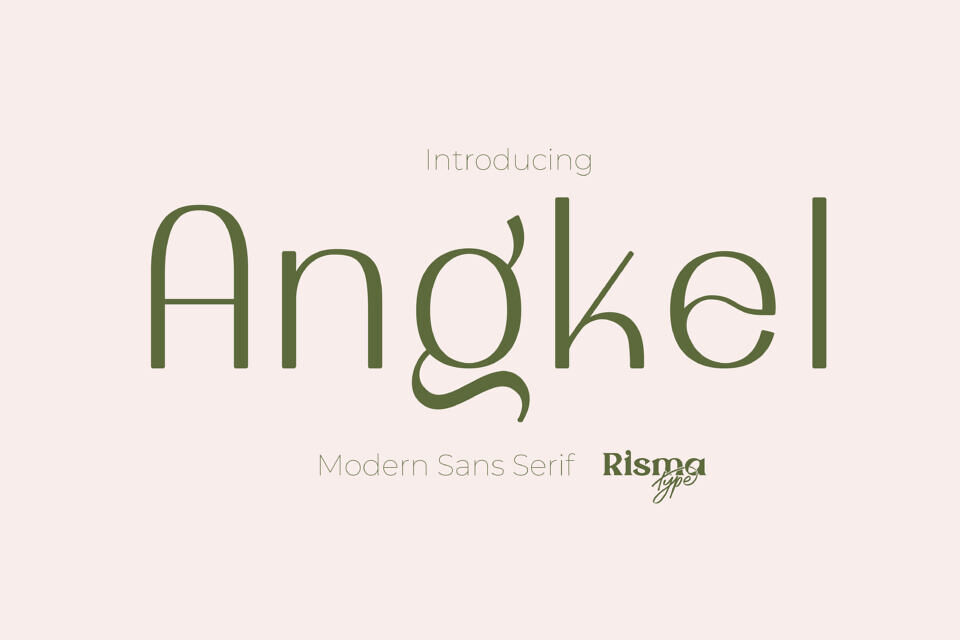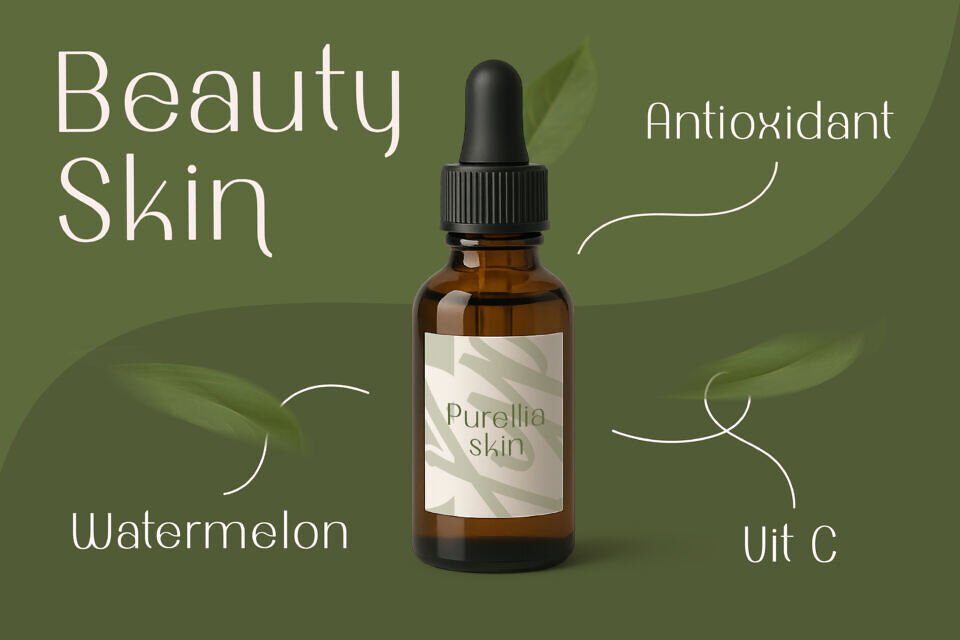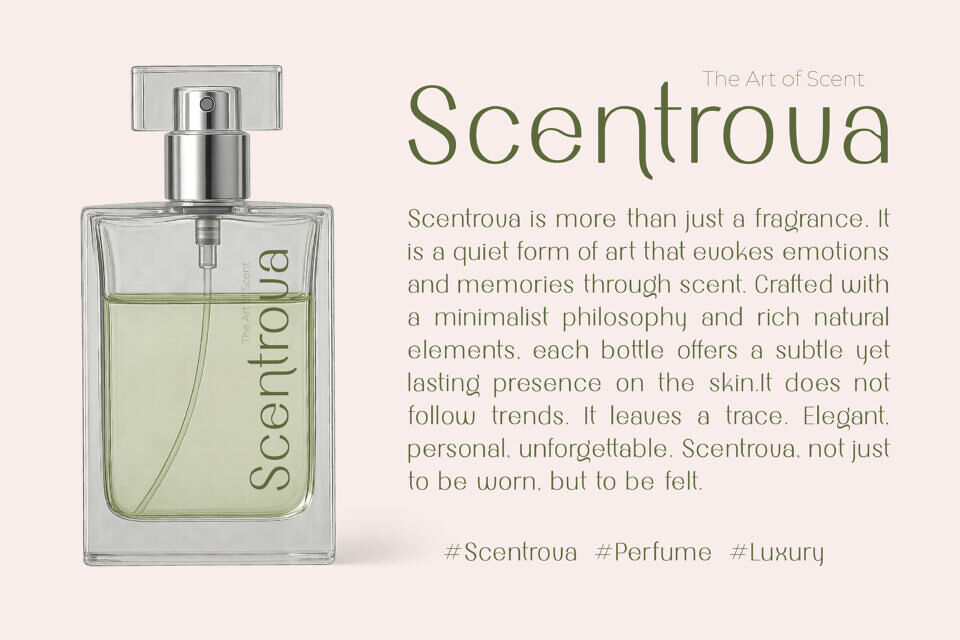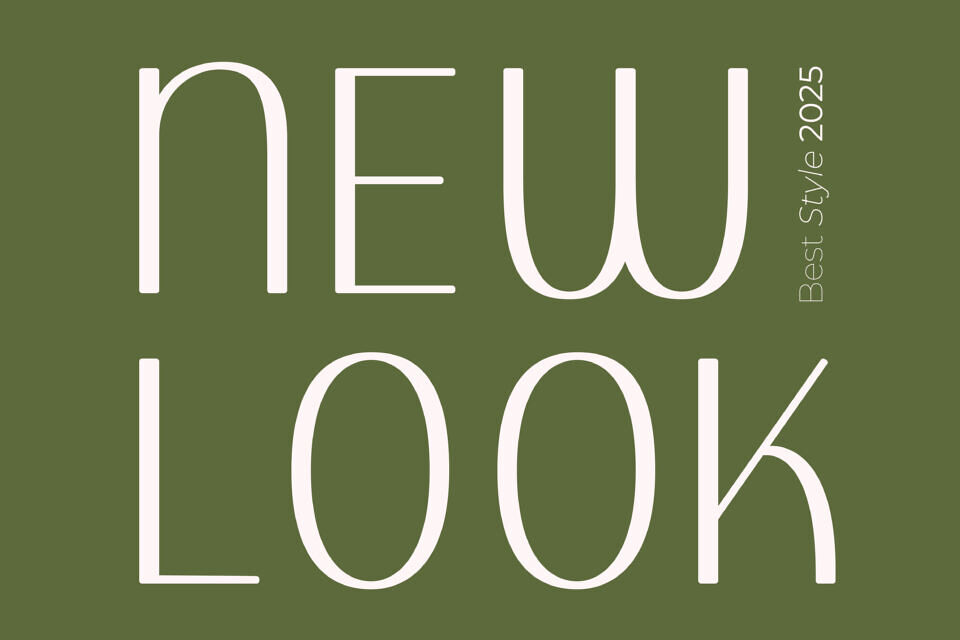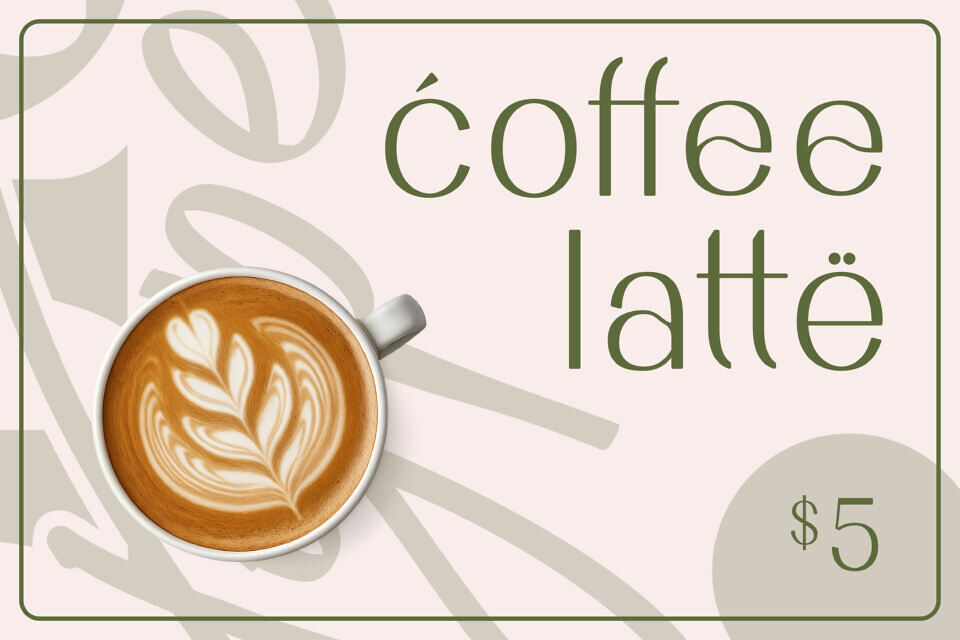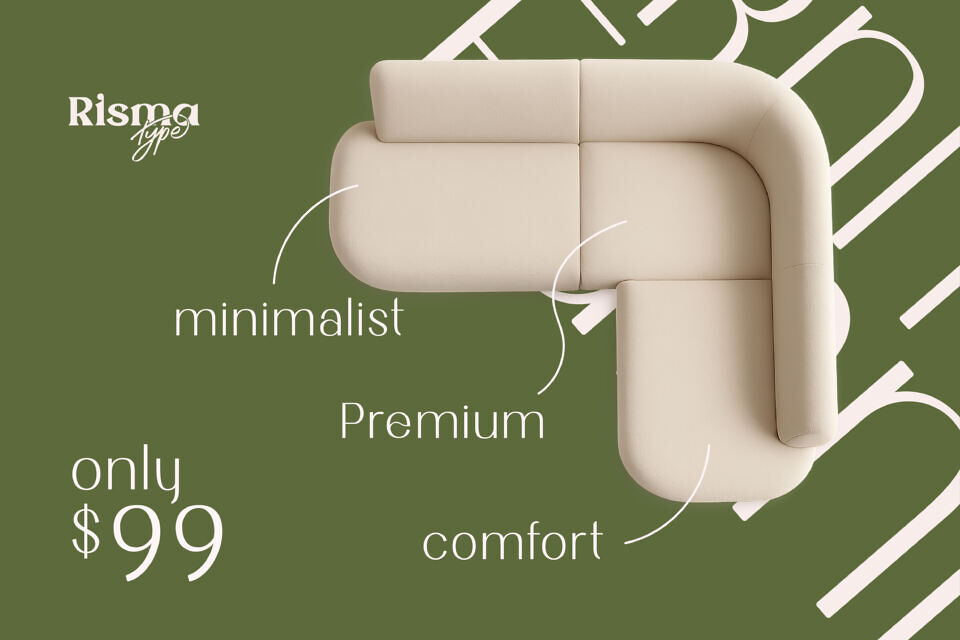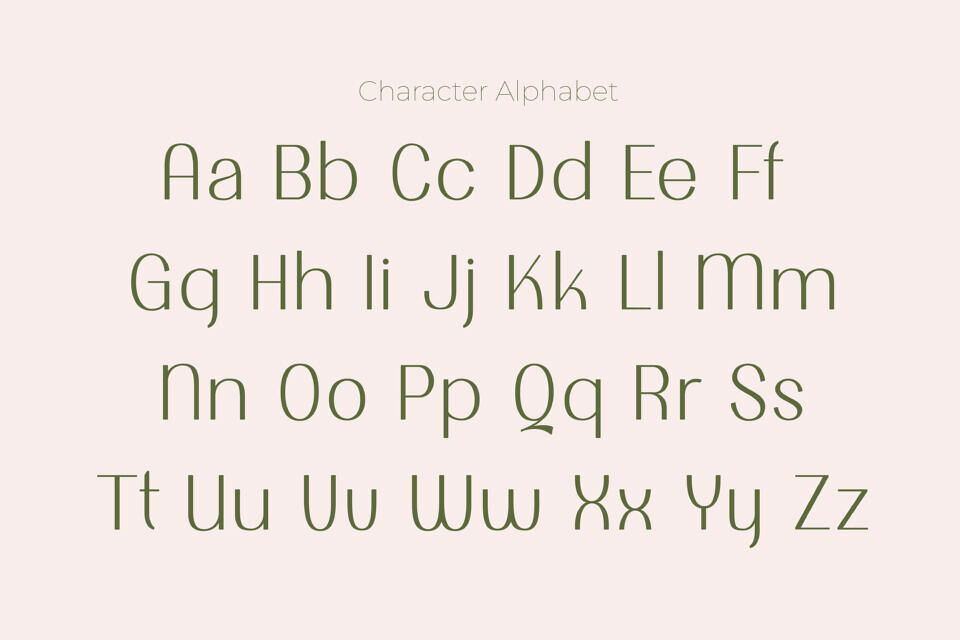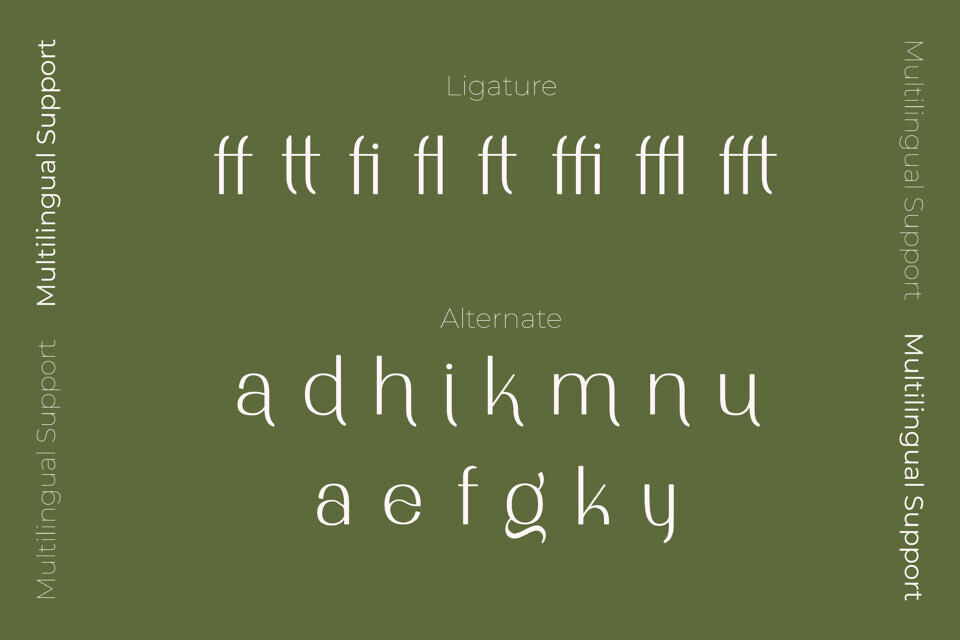
Angkel Font
Angkel is a modern sans serif font designed by Risma Type. It features two styles—Regular and Italic—each with 342 glyphs and 355 characters, offering versatility for various design applications.
Angkel’s clean, minimalist aesthetic makes it ideal for branding, logos, and display use.